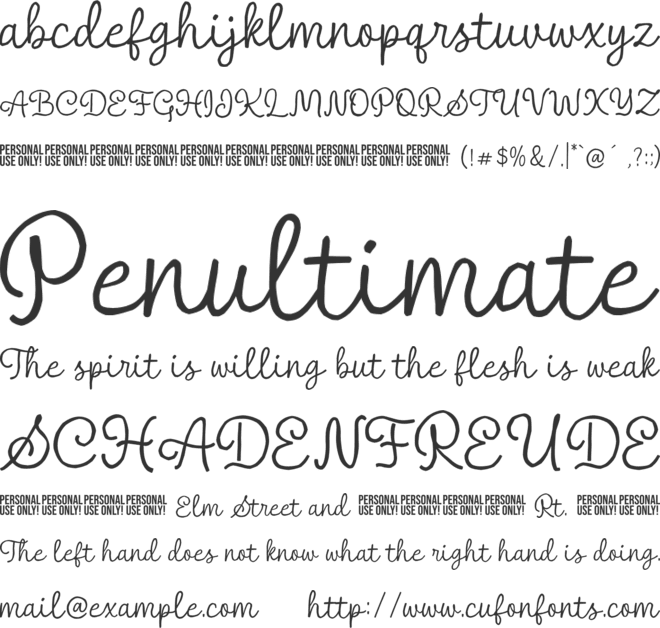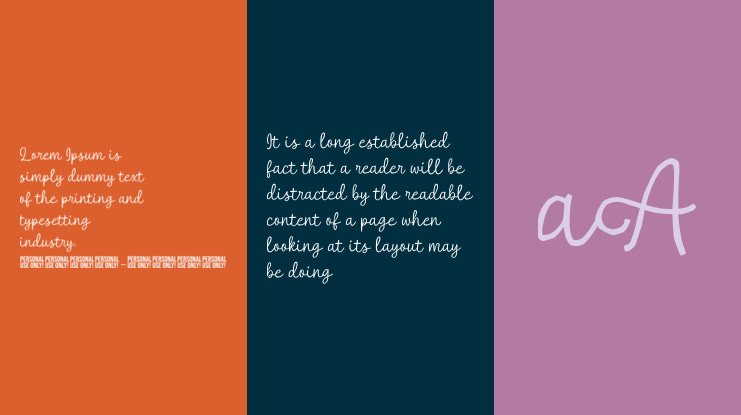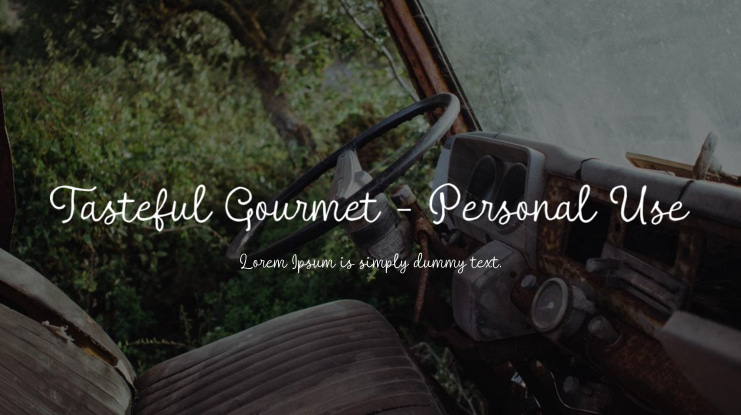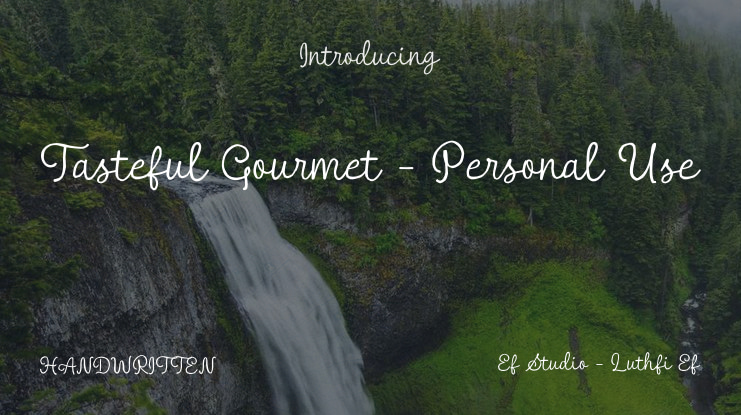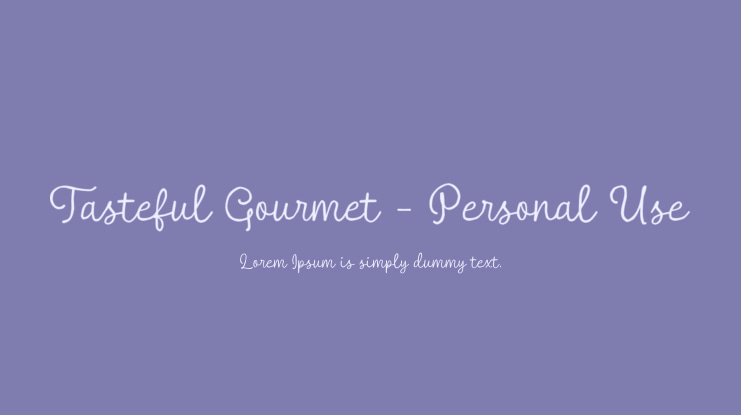
Tasteful Gourmet - Personal Use Font
Tasteful Gourmet is a charming script font meticulously crafted to embody the charm of a cozy bistro and the homely feel of rustic kitchens. It lends an authentic touch to any culinary project, infusing it with warmth and comfort. Transform your culinary creations with a typeface that radiates the simplicity and coziness of countryside living, perfectly suited for rustic-themed cookbooks, menus, dinner party invitations, and more.